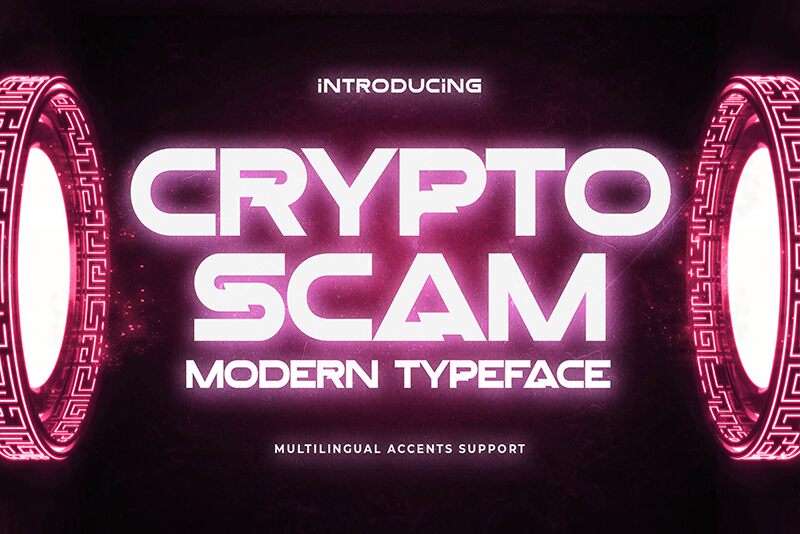
Crypto Scam Regular
Dive into the digital age with "Crypto Scam," a bold and expansive display font crafted by Gassstype. With its extra-expanded width and heavy weight, this typeface commands attention and exudes confidence. The futuristic style of Crypto Scam is not just visually striking; it's a celebration of modern design aesthetics that speaks to the forward-thinking creator.
The font's broad strokes and tight curves suggest a robustness that is ideal for headlines, posters, logos, and any project that demands a strong visual impact. It's the kind of font that can carry an entire visual campaign with its authoritative presence while also being versatile enough to complement other design elements seamlessly.
Whether you're crafting the next big tech brand, designing promotional material for an innovative startup, or setting up the visuals for a cutting-edge event, Crypto Scam offers a contemporary flair that is sure to captivate your audience. Embrace its unique characteristics to make your creative project stand out in an ever-evolving digital landscape.